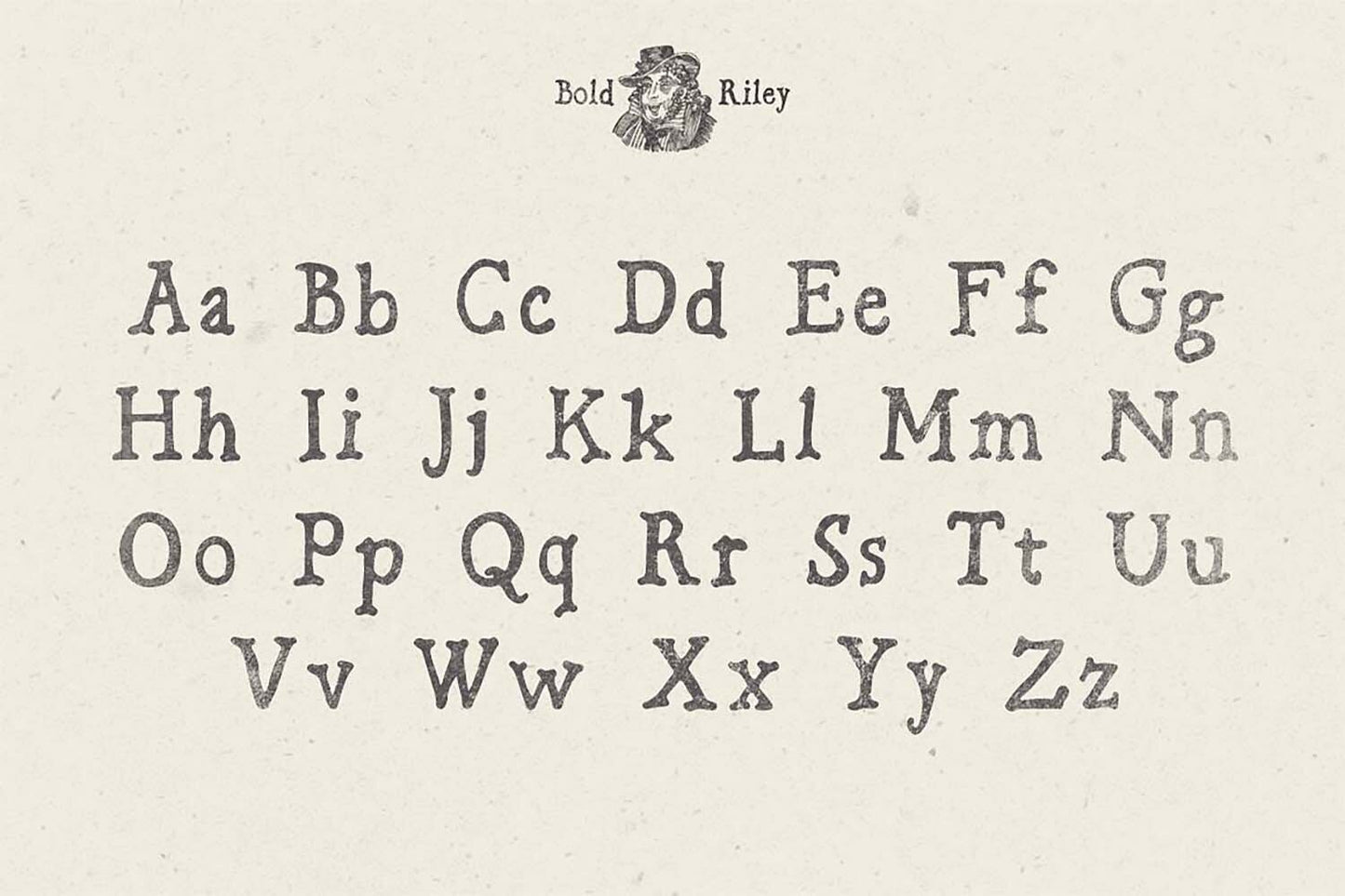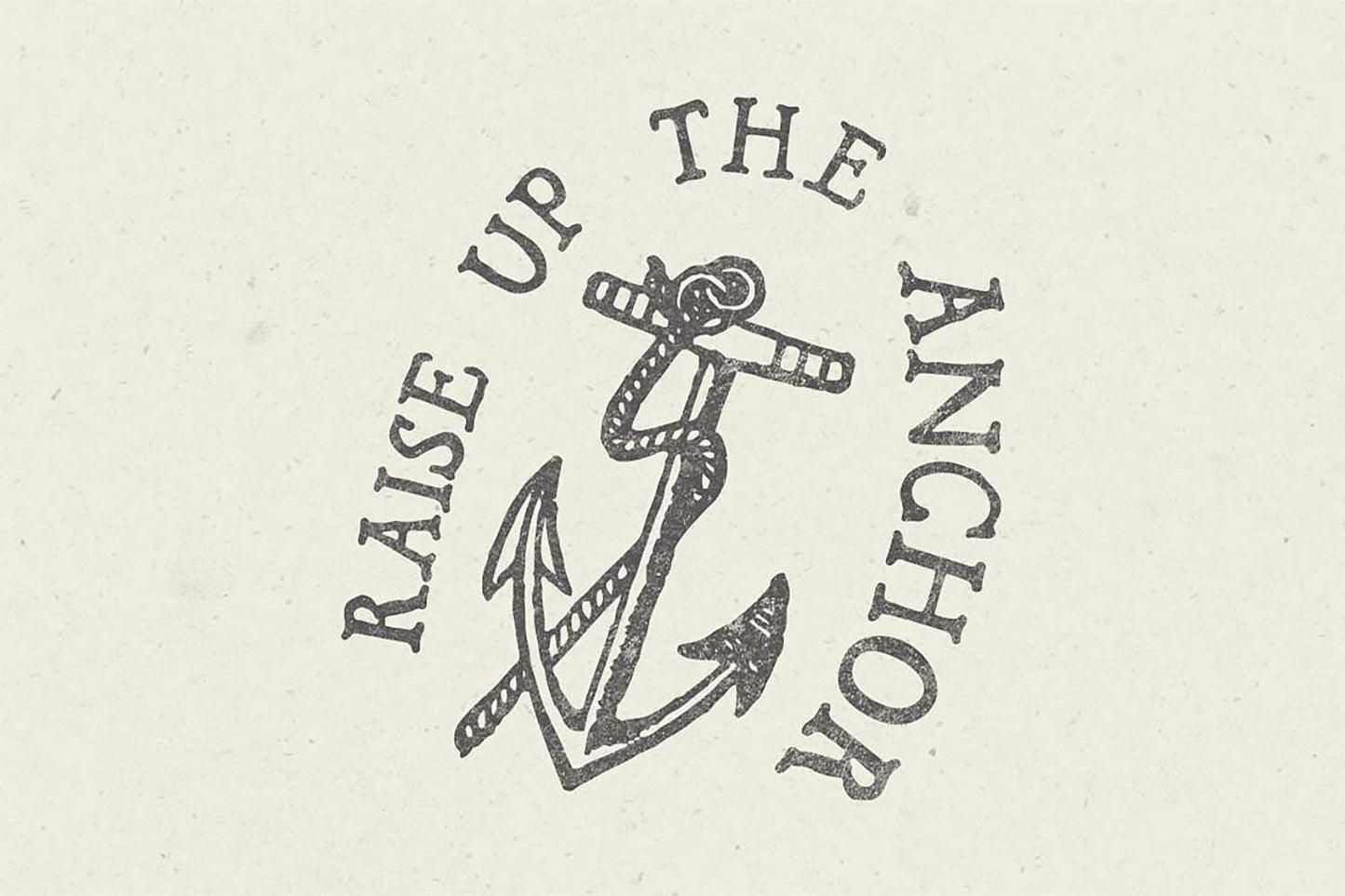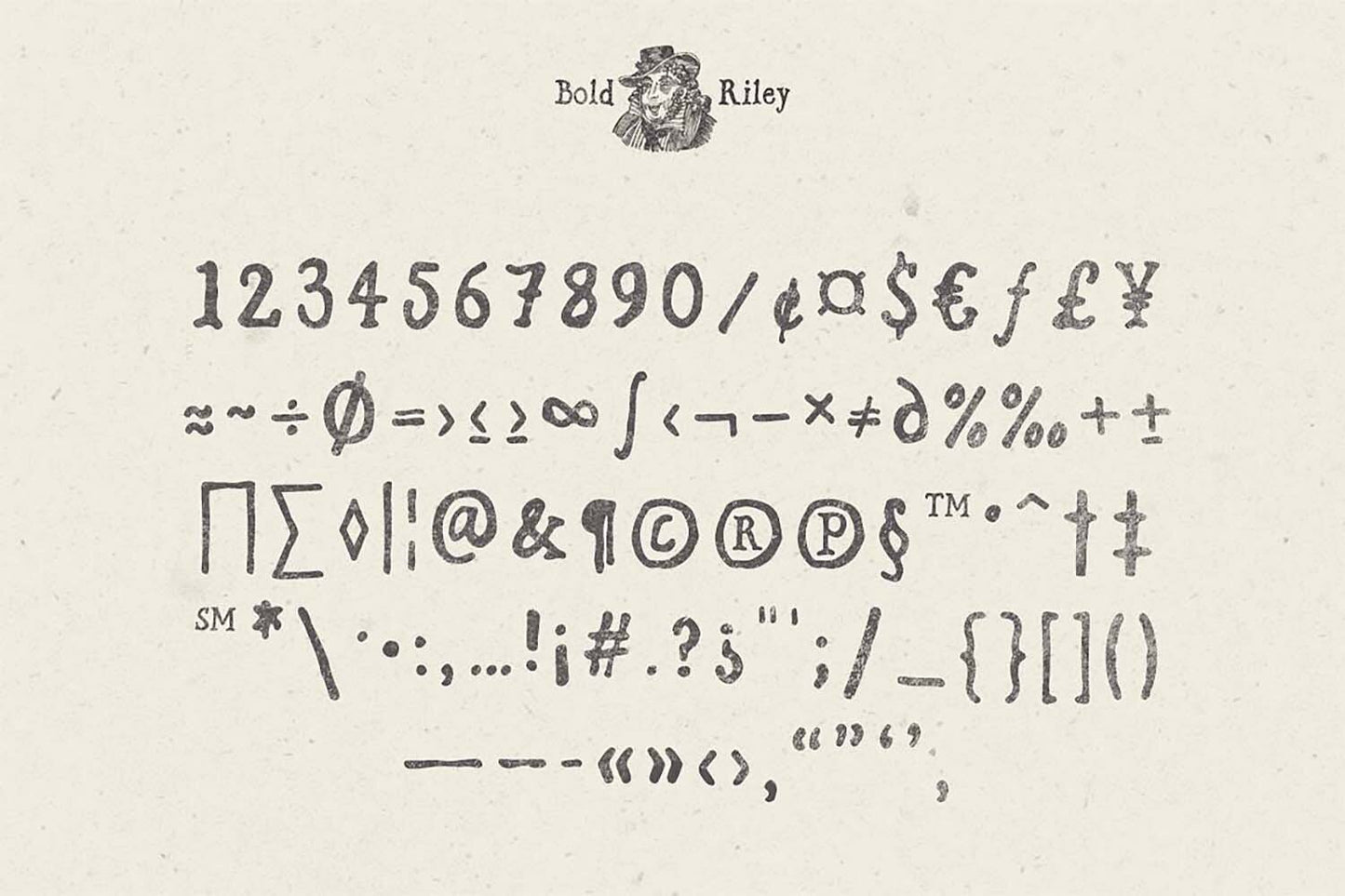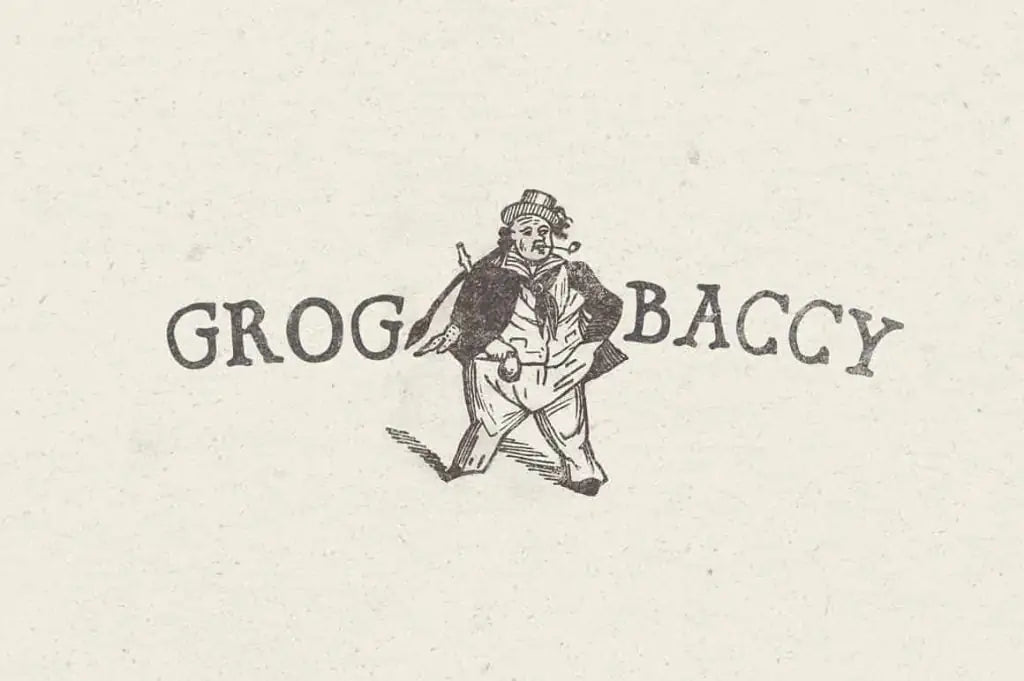
Bold Riley
About Bold Riley
Allow me to introduce you to Bold Riley font, a unique handmade serif display typeface. Each and every letter was meticulously crafted by hand with pen and ink, giving it that hand-made feel.
With a distinct nautical charm, Bold Riley font captures the essence of salty air, salty tales, and the enduring allure of the sea. It rocks a rough and slightly grungy appearance that's perfect for making a statement. Whether you're looking to jazz up your packaging, create eye-catching invitations and cards, or give your logo that extra edge, Bold Riley's got your back.
- Uppercase and lowercase letters, Punctuation, Symbols and Numbers
If Bold Riley font were a pirate
If Bold Riley font were a pirate, it would be the fearless and charismatic Captain Blackbeard. Just as Blackbeard was known for his imposing presence and bold, distinctive appearance, Bold Riley font carries a similar sense of authority and uniqueness.